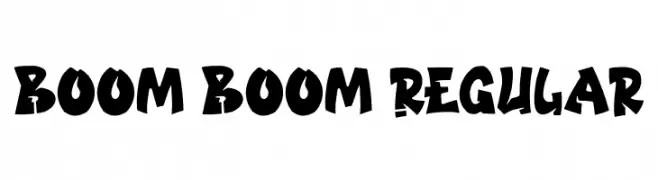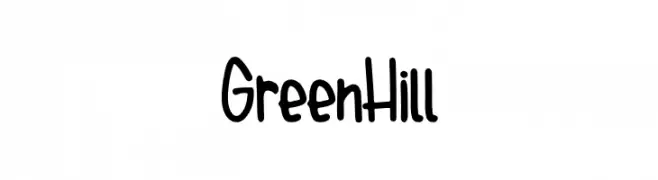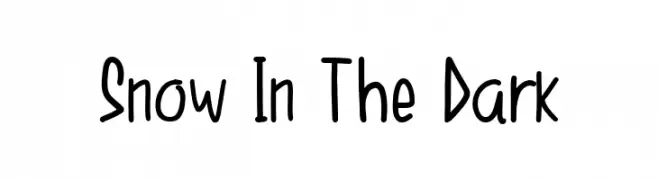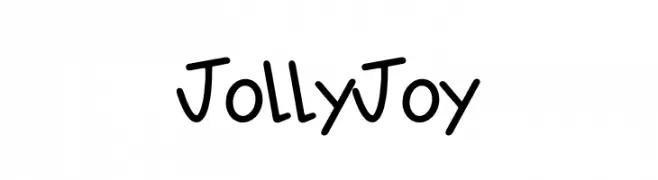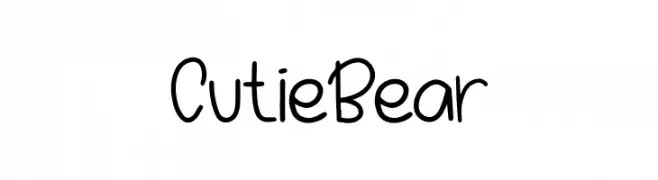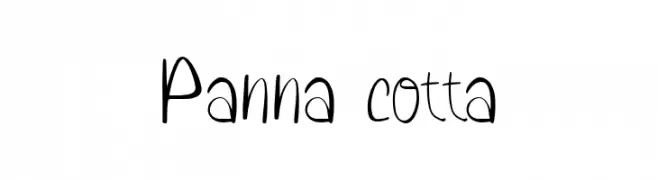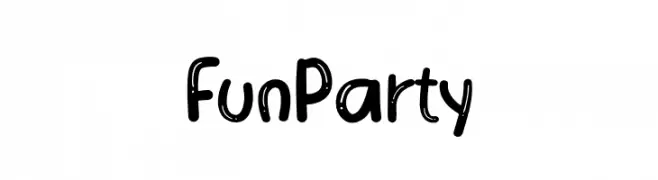
A spooky, dripping font perfect for Halloween-themed projects.
A playful, hand-drawn font with rounded edges and a casual style.
A playful, ghost-themed decorative font with whimsical and spooky characters.
A bold, playful font with dynamic shapes and thick strokes.
A playful, handwritten font with a casual and friendly appearance.
A playful, hand-drawn font with a whimsical and friendly style.
A playful, handwritten font with a casual and friendly style.
A playful, handwritten font with a casual and friendly appearance.
A playful handwritten font with a casual and friendly style.
A bold, hand-drawn font with a playful and whimsical style.